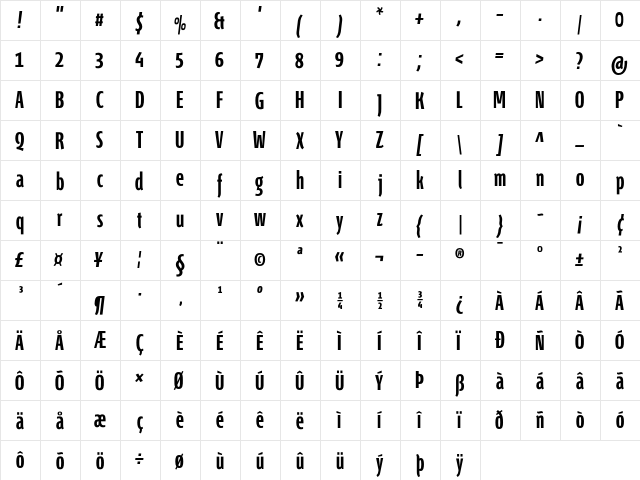
Fontana ND Ll Semibold
Design Context for Fontana ND Ll Typeface
Fontana ND Ll offers clean, dependable letterforms without strong stylistic allegiance, making it a practical choice for designers who need flexibility. The heavy weight commands attention and anchors typographic hierarchies.